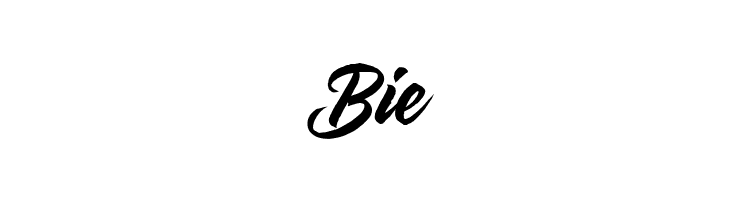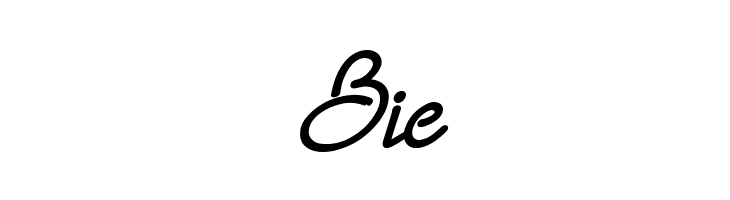
A bold, hand-drawn font with a staggered, textured appearance.
A bold, hand-drawn font with a rugged, textured appearance.
A bold, textured handwritten font with a playful and energetic style.
A bold, handwritten font with energetic brush-like strokes.
A dynamic brush script font with fluid, expressive strokes.
An elegant, flowing script font with a natural handwriting style.
A stylish and elegant script font with flowing, connected letterforms.
A lively script font with fluid, connected strokes and elegant loops.
A bold, expressive script font with fluid, dynamic strokes.
A playful handwritten font with tall, narrow letterforms and a casual style.